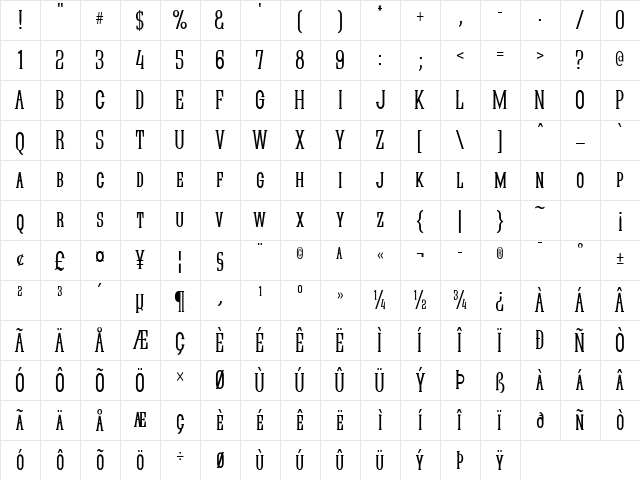
Quastic Kaps Narrow Regular
Design Context for Quastic Kaps Narrow Typeface
Quastic Kaps Narrow offers clean, dependable letterforms without strong stylistic allegiance, making it a practical choice for designers who need flexibility. Its narrow stance lets it pack a punch even in space-constrained designs.
Pro Tip: Use Quastic Kaps Narrow in both headline and body roles to test its range before committing to a single application.